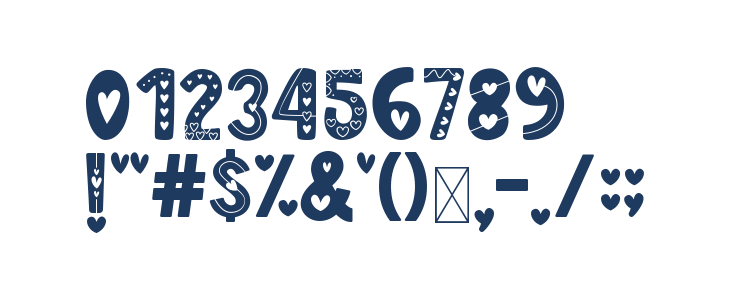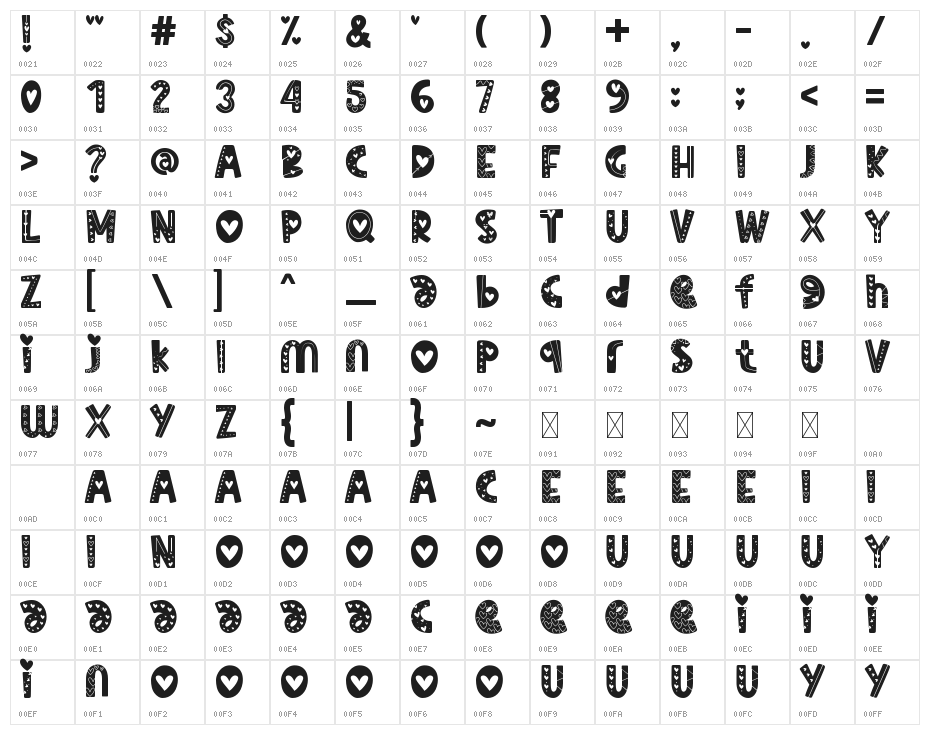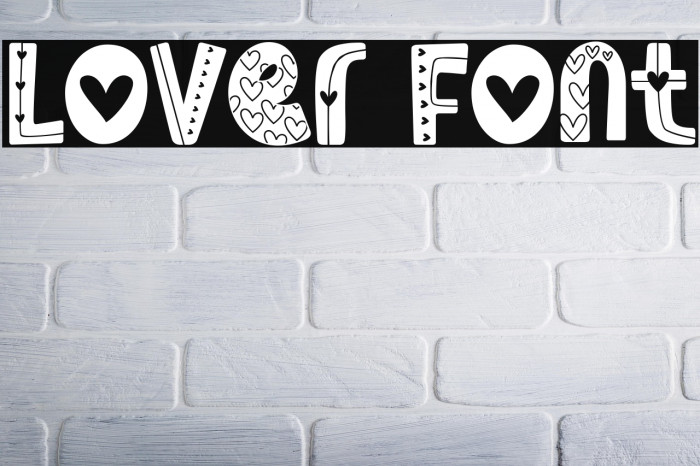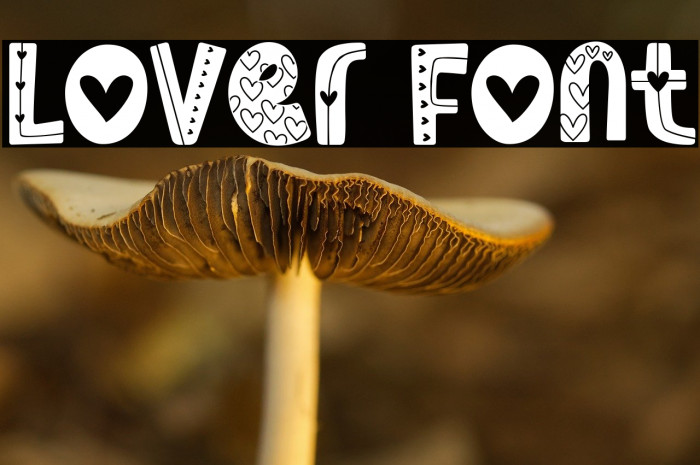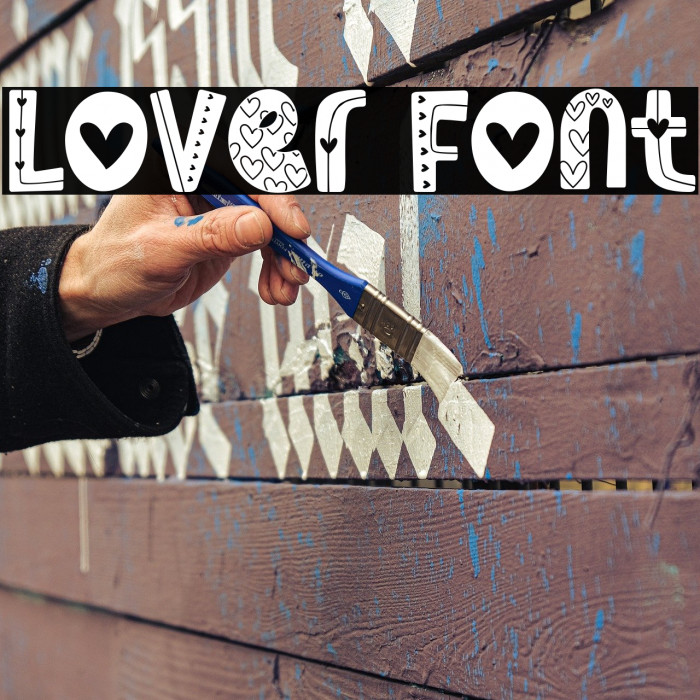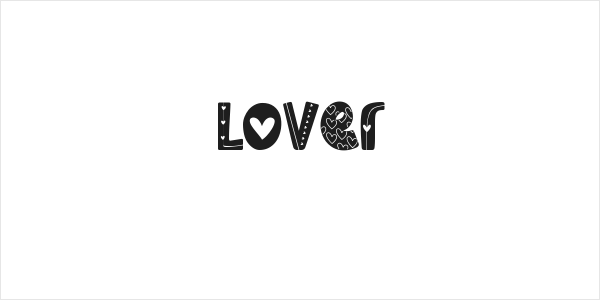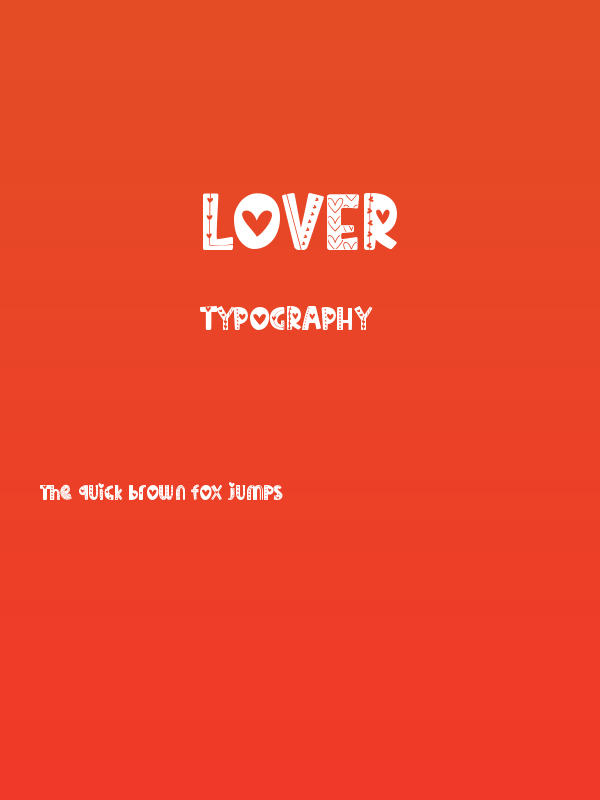
Lover Font
Lover Description
This playful and decorative font features bold, chunky letters filled with heart motifs, creating a whimsical and romantic feel. Each character is uniquely designed with varying heart patterns, from outlines to solid shapes, adding a sense of fun and creativity. The font maintains a consistent weight throughout, ensuring readability while still being visually engaging. Its bold and expressive style makes it perfect for projects that require a touch of love and joy. The characters are well-spaced, providing a balanced and harmonious look, ideal for eye-catching designs.
| Overall Style | Playful, Romantic |
| Proposed Projects | Ideal for Valentine's Day cards, wedding invitations, love-themed posters, and playful branding. |